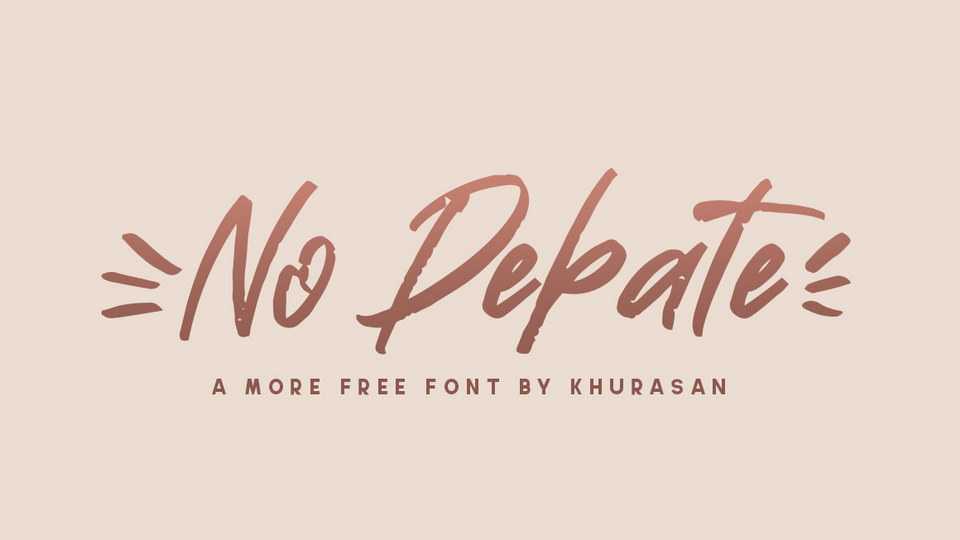
Download No Debate font, a modern hand painted brush typeface with a casual feel. No Debate is great for posters, logos, branding or any other design that requires a cool look.